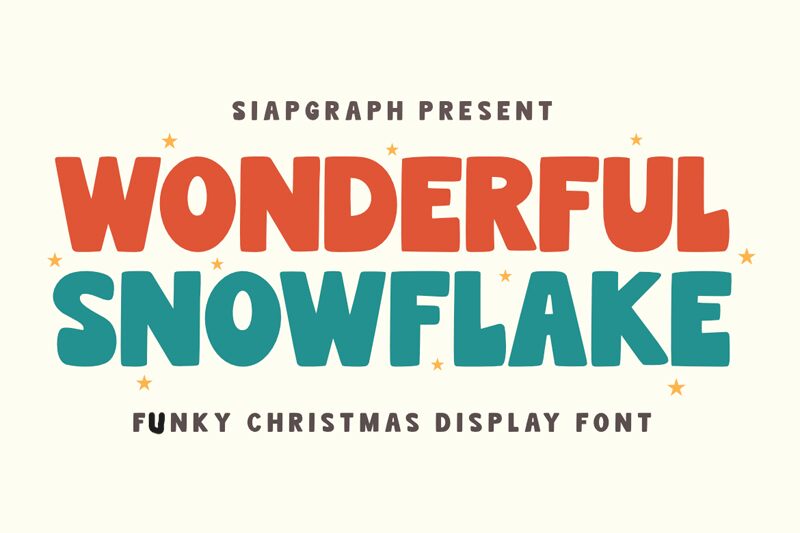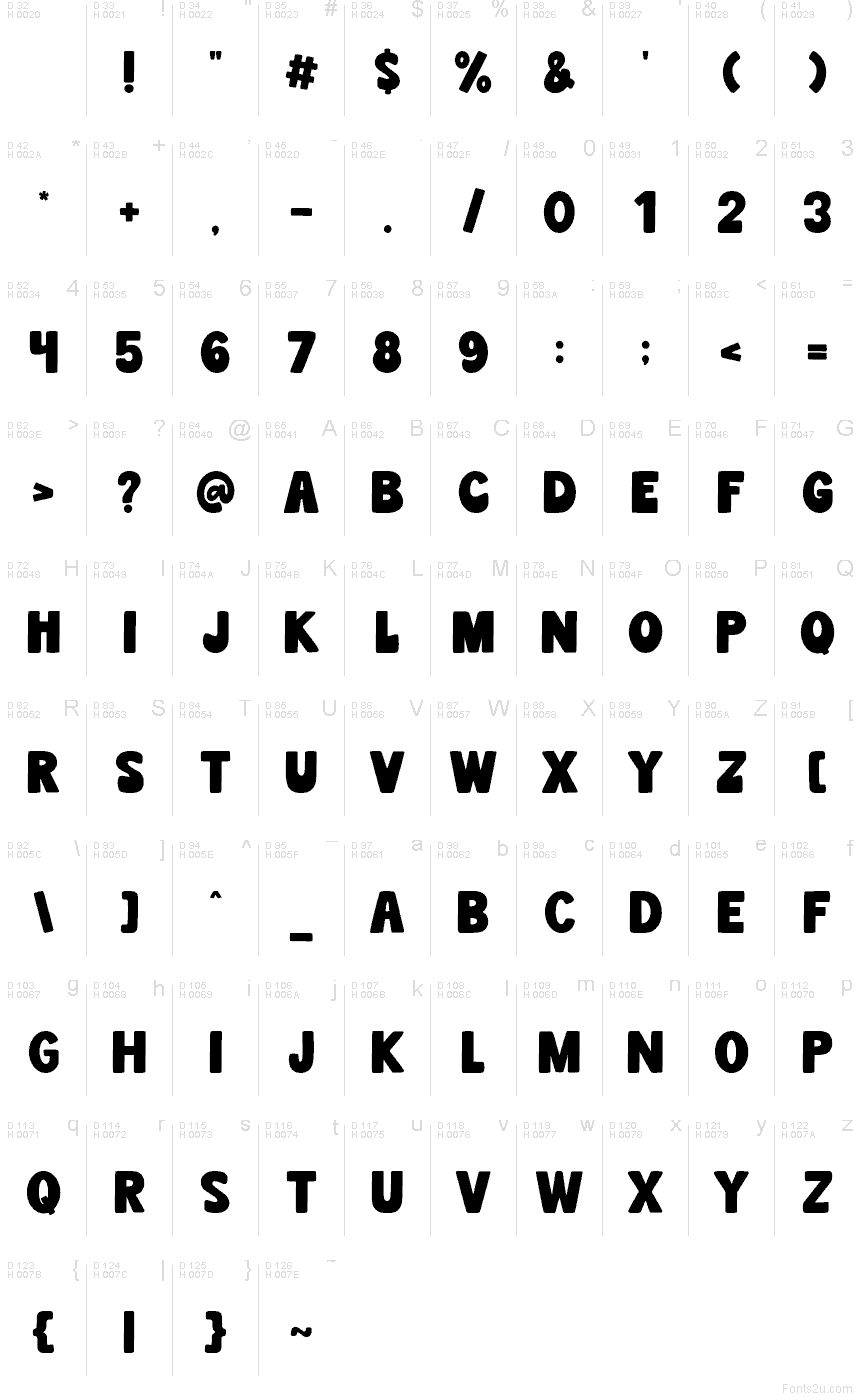
Wonderful Snowflake Regular
Wonderful Snowflake by SiapGraph is a free comic display font defined by a squat, blocky silhouette and broad rounded cuts that keep the lettering dense and friendly at the same time. The forms sit close and full, creating a compact wall of black that feels more like soft sign painting than a standard comic face.
That chunky silhouette makes sense on kids' party invites, cheerful packaging, app splash screens, storefront headers, and short social graphics where the lettering needs clear graphic mass. It can also anchor stickers or logo sketches, especially when a project wants big, simple shapes instead of fussy detail.